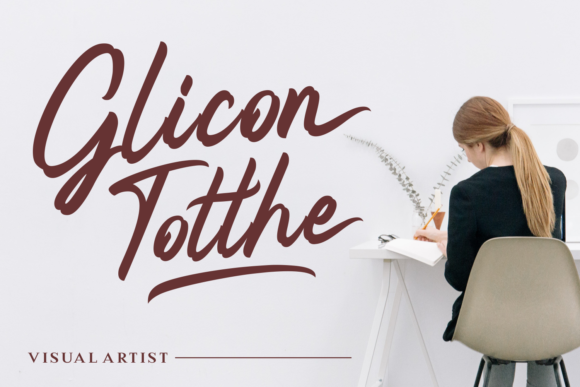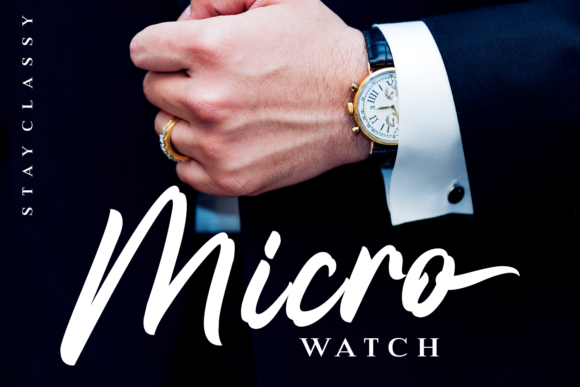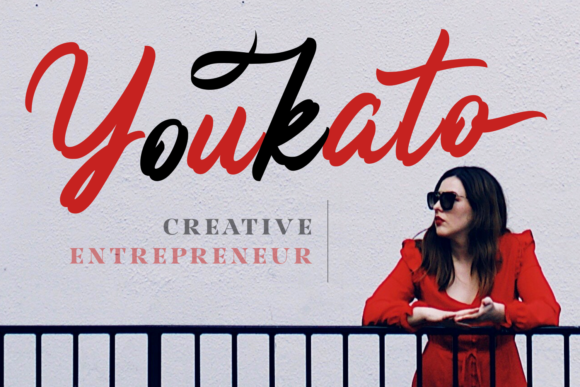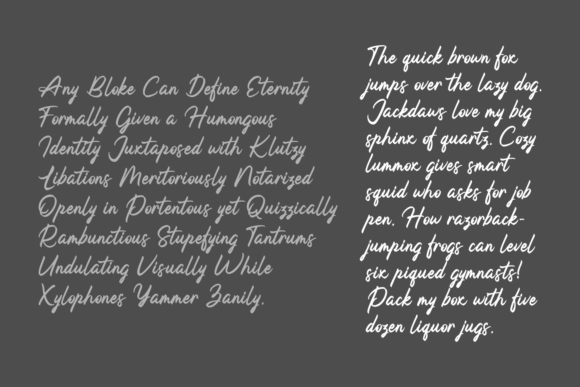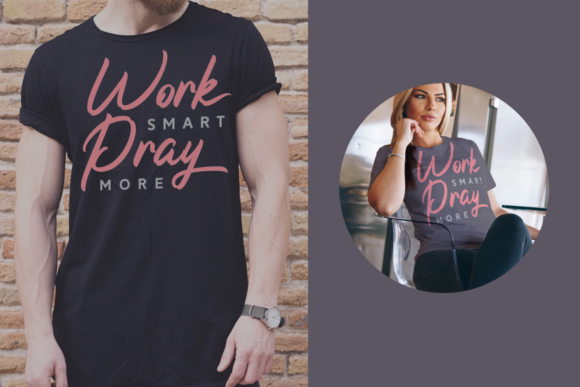
Helga Rotera Font
About Helga Rotera Font
The Helga Rotera is an unique script typeface. It has a bold style with a perfect readability which will make any design stand out. It includes amazing alternates which can be used to add an elegant feel to your design in an instant.